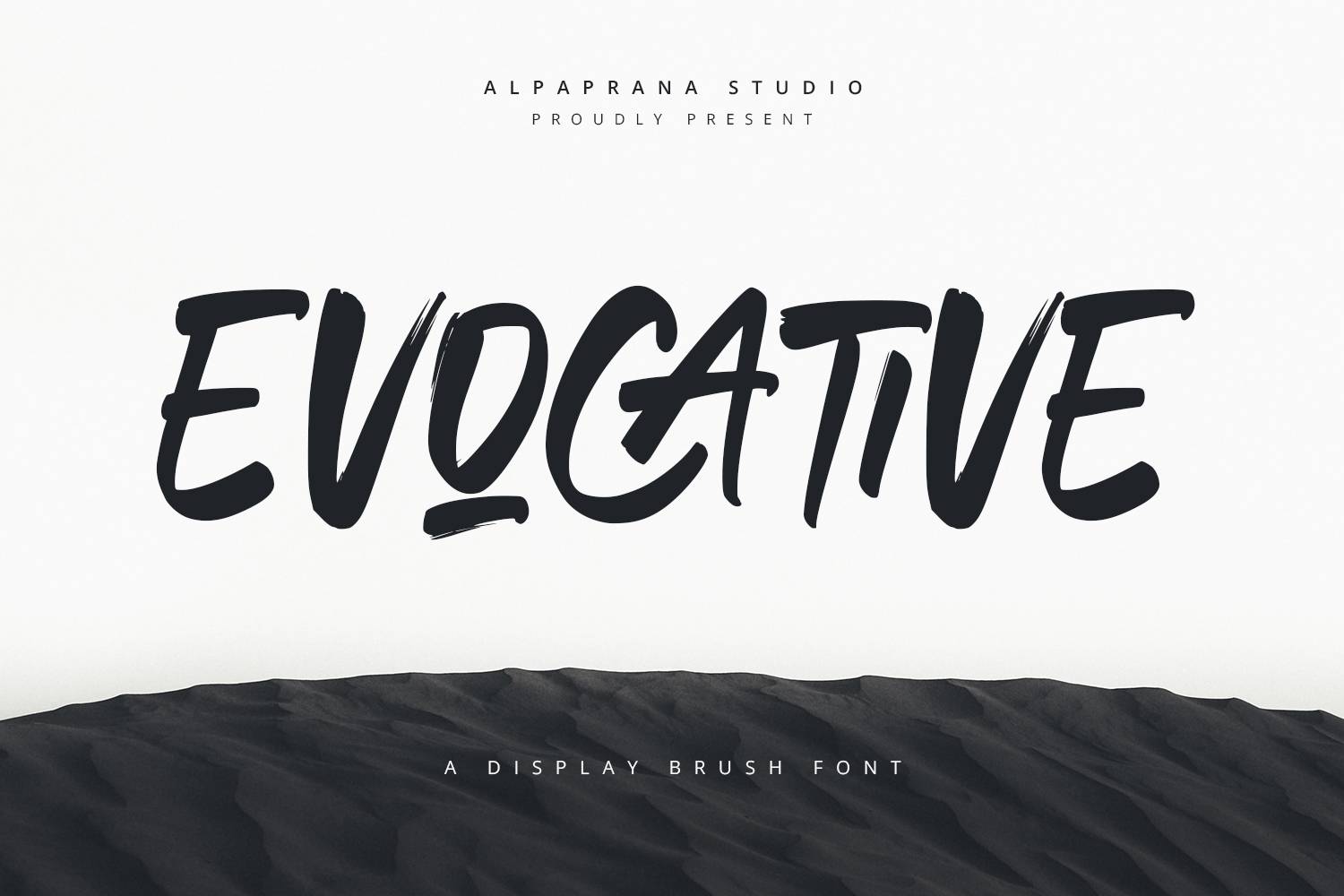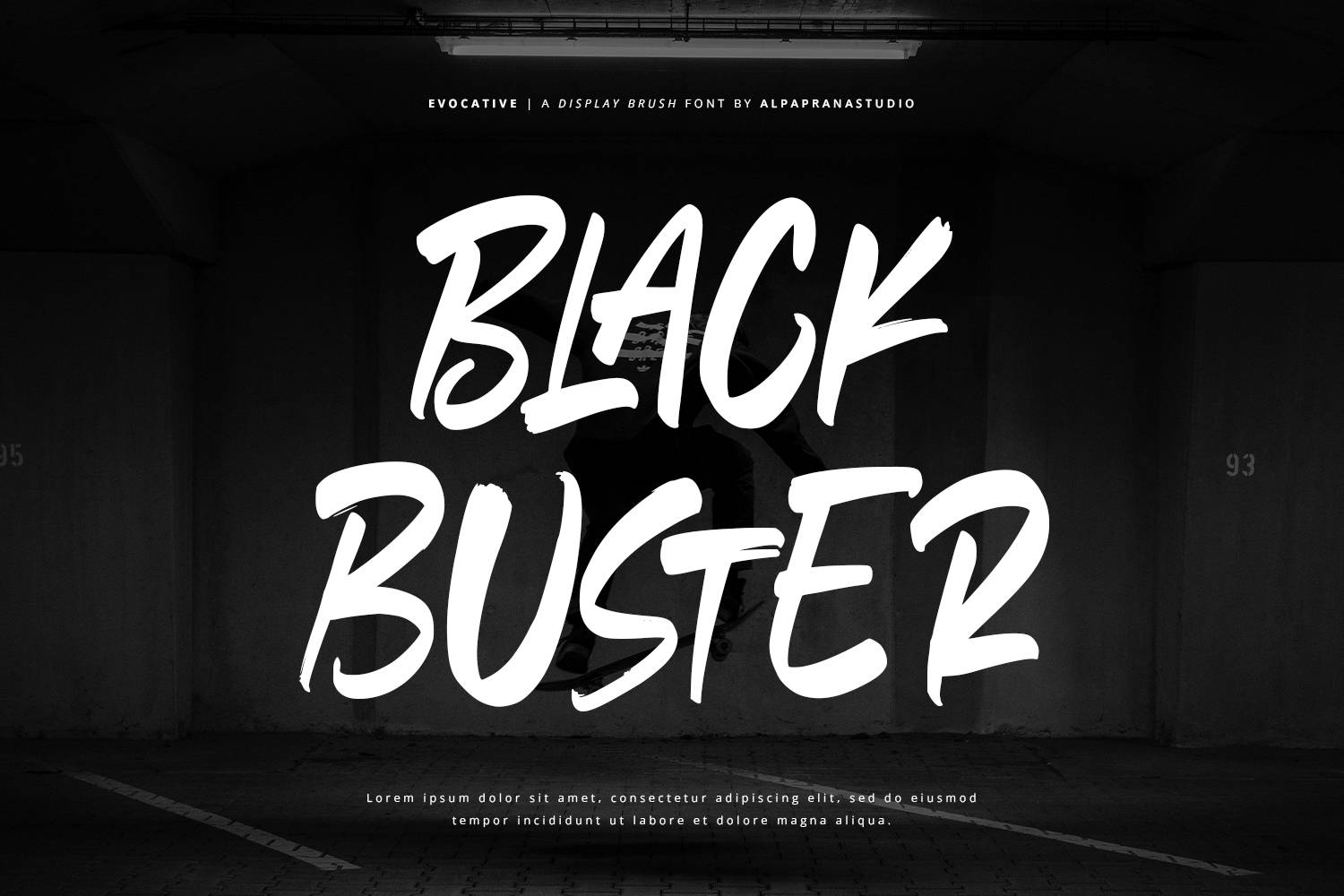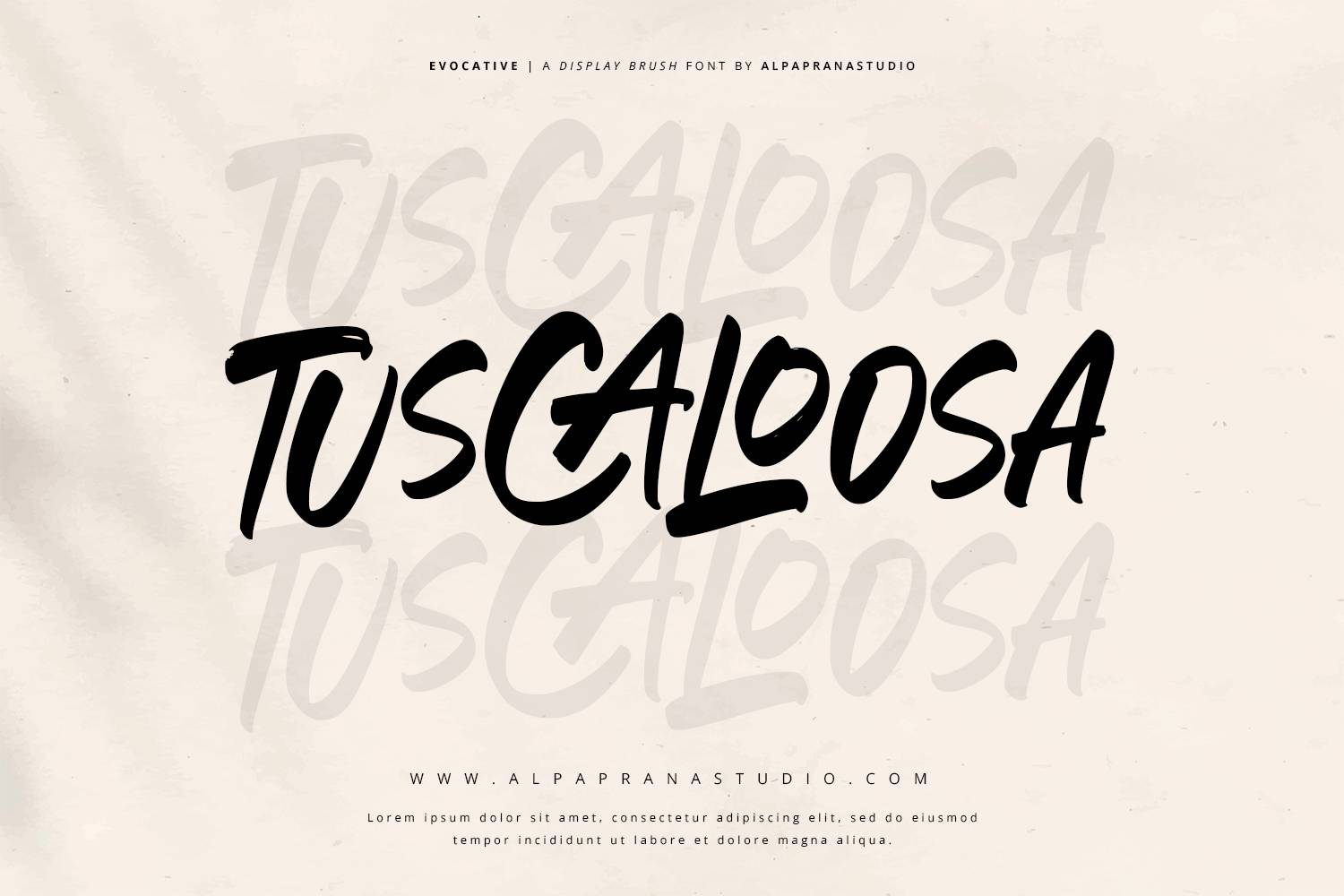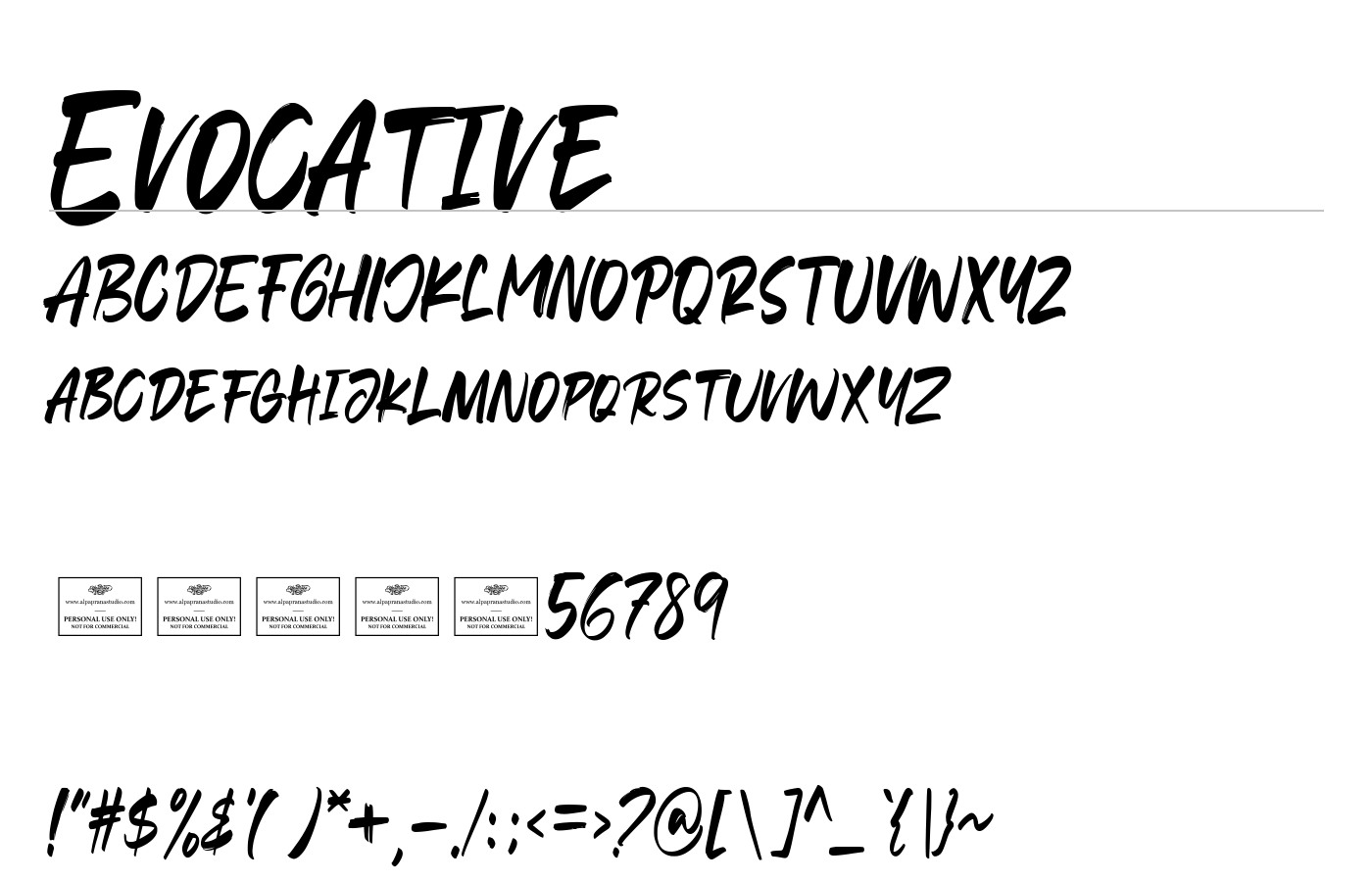
Evocative Font is a lively, handwritten script with a bold, slightly condensed style that captures an energetic and playful mood. Its brush-like strokes and casual letterforms make it perfect for standout headlines and creative branding that seeks a youthful, dynamic personality. This font shines in projects like posters, logos, and social media designs where a personal and expressive touch is desired.
Evocative Font
About Evocative Font